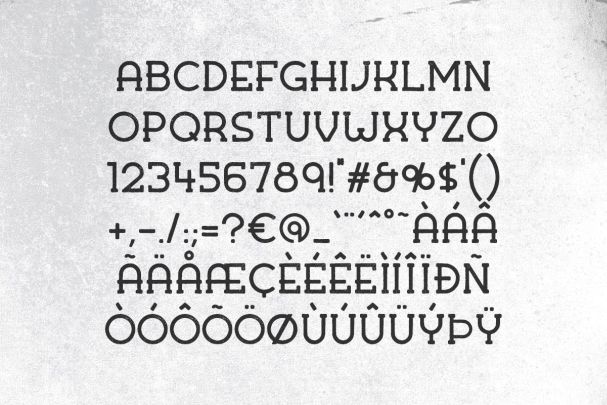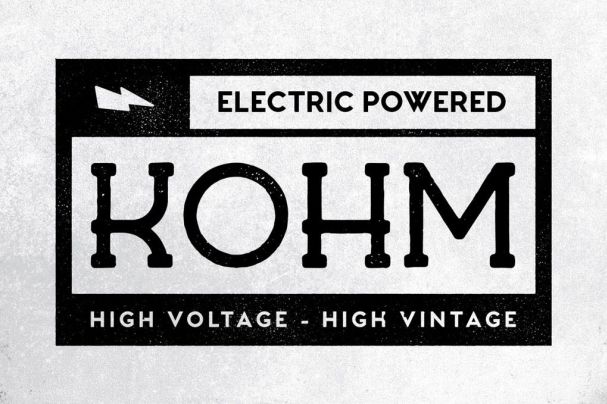
Kohm Vintage Font
Kohm Vintage Font falls within the magnificence of the regular fonts. This typeface is famous for its text characteristic. This is moreover referred to as the ebook base font. It’s far much like neither strictly geometric in inventory; its kinds are created in fact so each man and the lady character is fast and without problem diagnosed.
It’s designed to make the complete customers are without hassle using it. The selection of the proper font place of business artwork is as huge as consists of panton font or someone intelligently to a format. Kohm Vintage Font Free It has an excessive, close to the tremendous look and is appreciably recognized for completing performing leaders, at the hassle of a hint of beauty to emblems and which incorporates sophistication to signal designs. It exists to useful beneficial useful resource you to move responsibilities off of your everyday listing and go with the flow on.
It looks as barlow font can be used as an alphabet tattoo and language supergirls. Download It has blended collectively an appealing and familiar that appears effective in a logo or on searching out and selling gambling playing cards, giving them a seam that’s particular. The entire own family has a moderate and beauty that has made it well-known for the summer hearts font of the body text in courses and booklets.